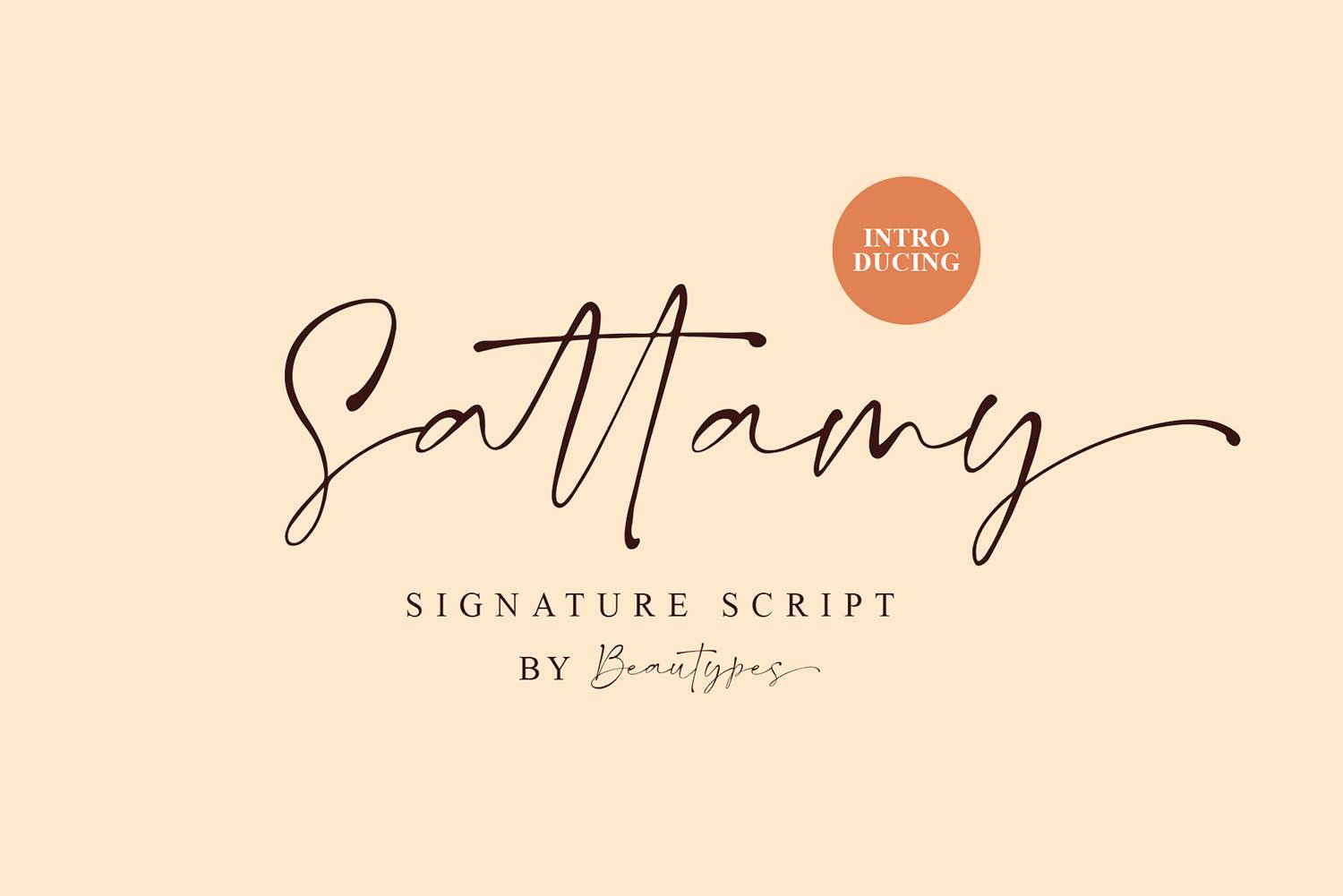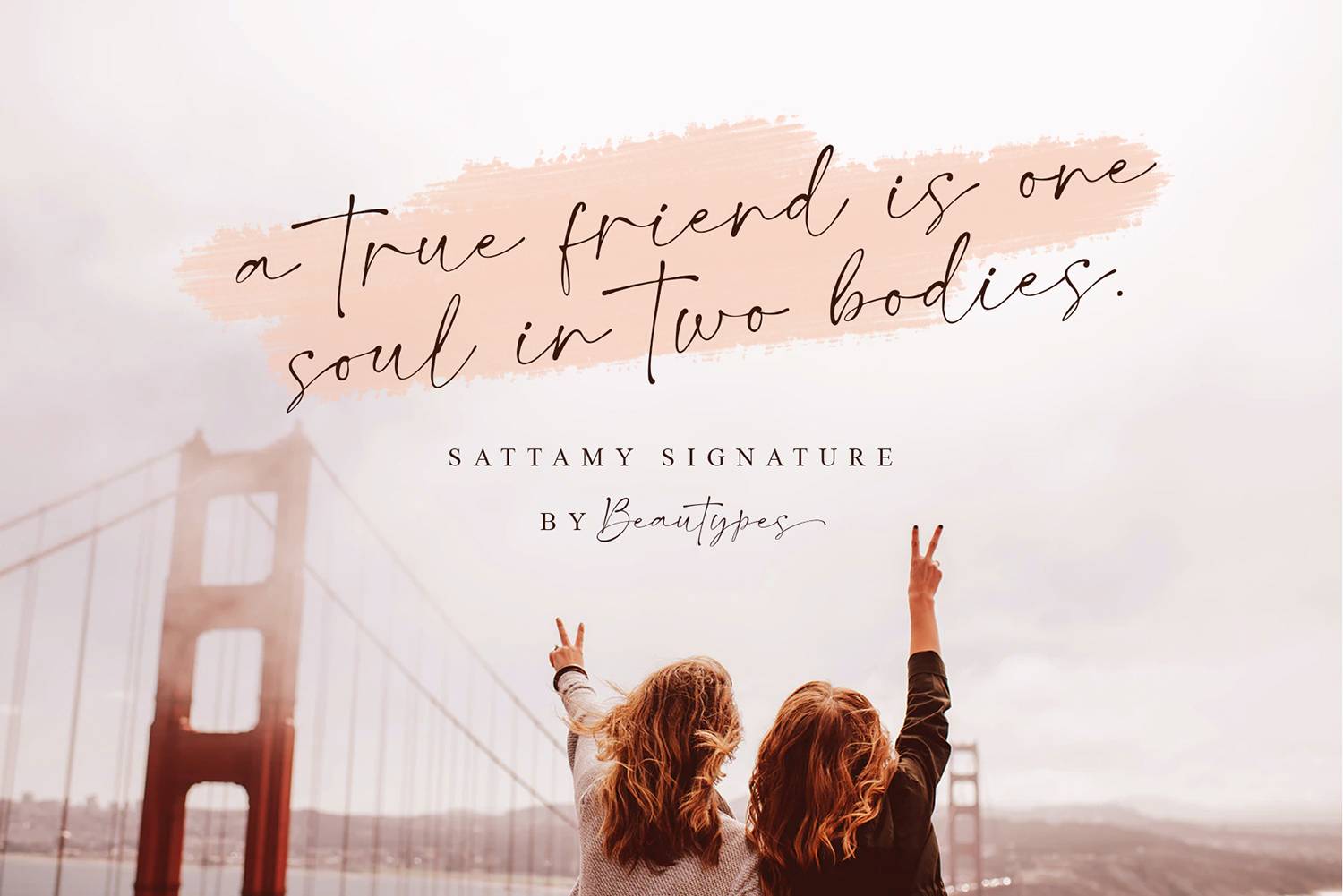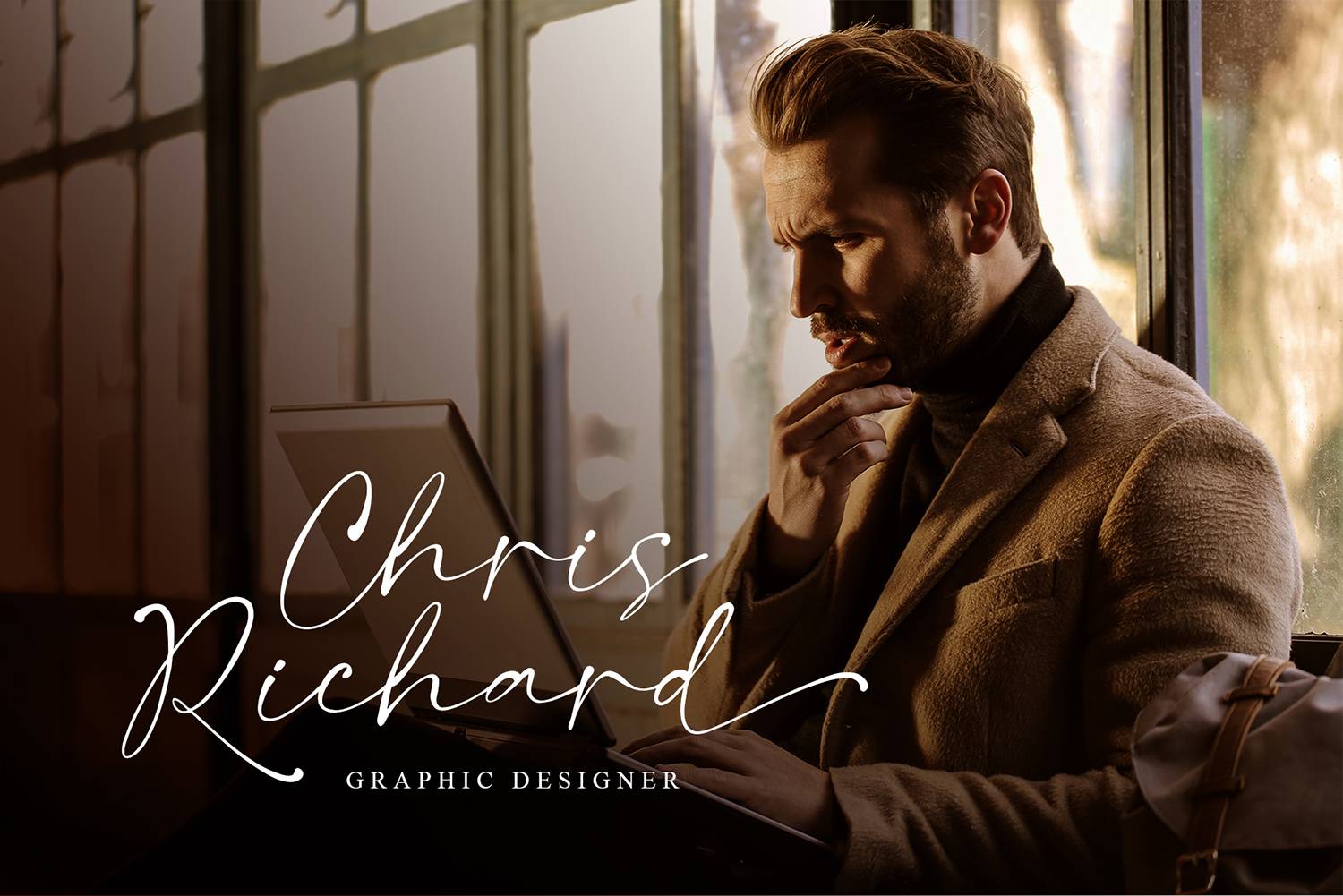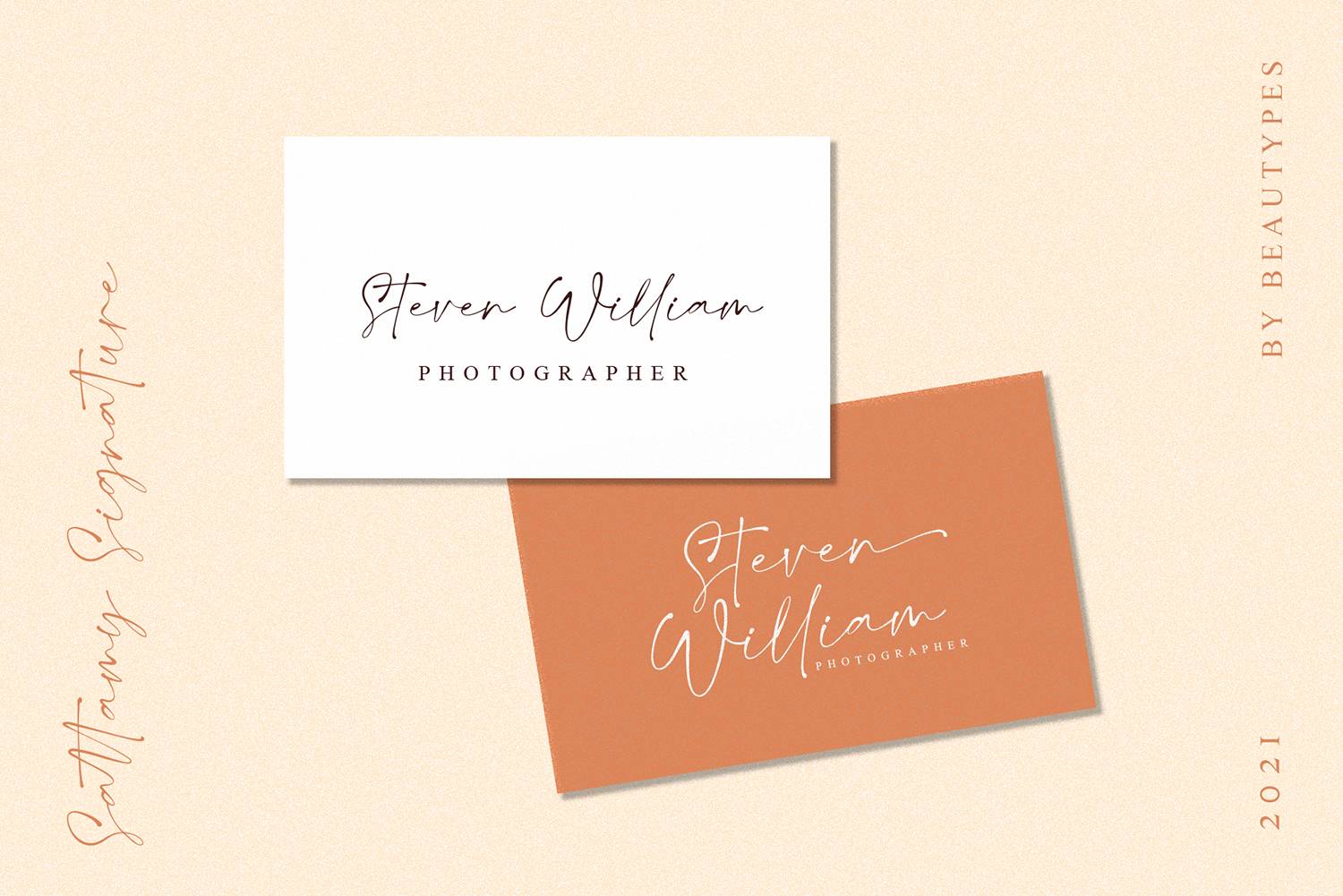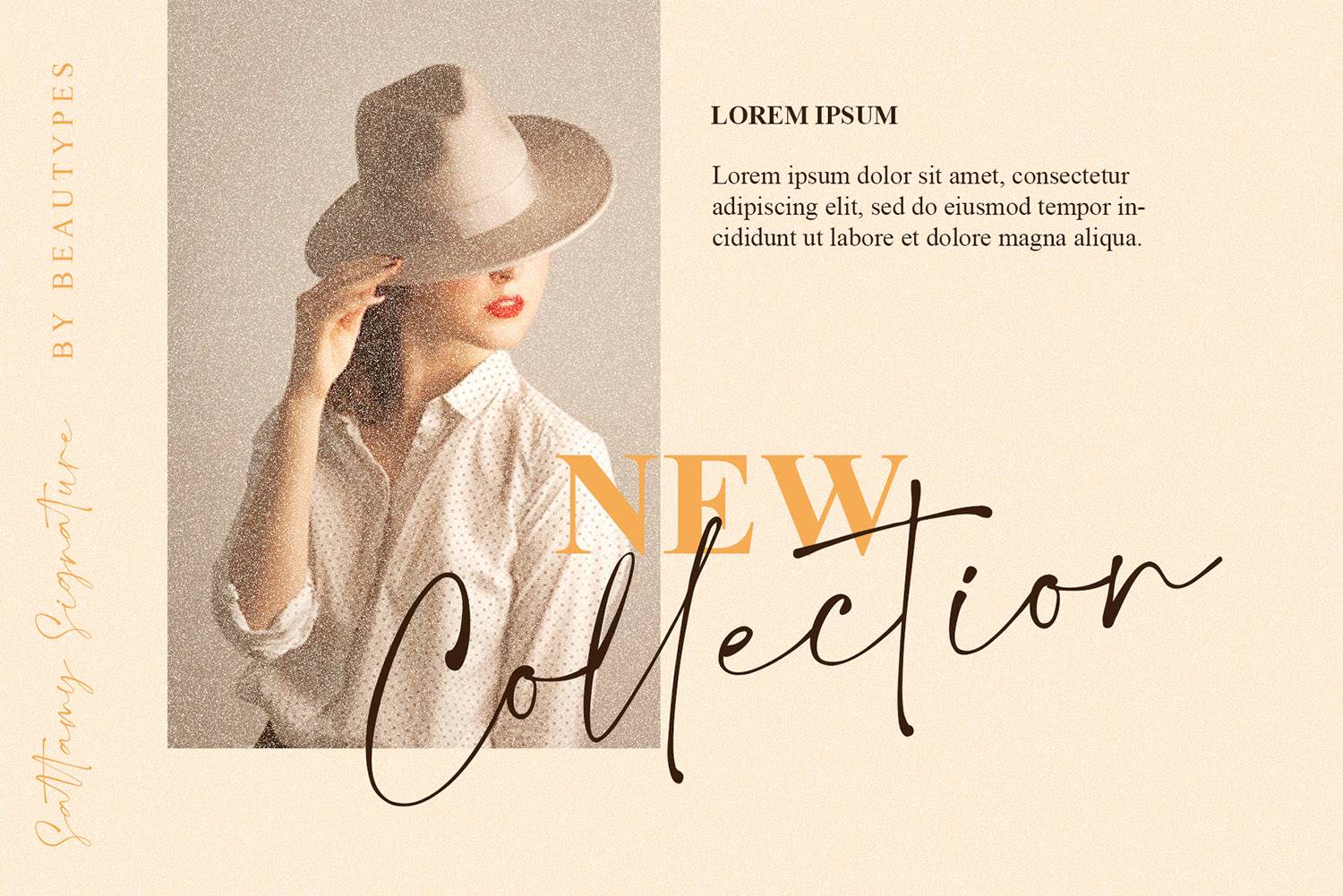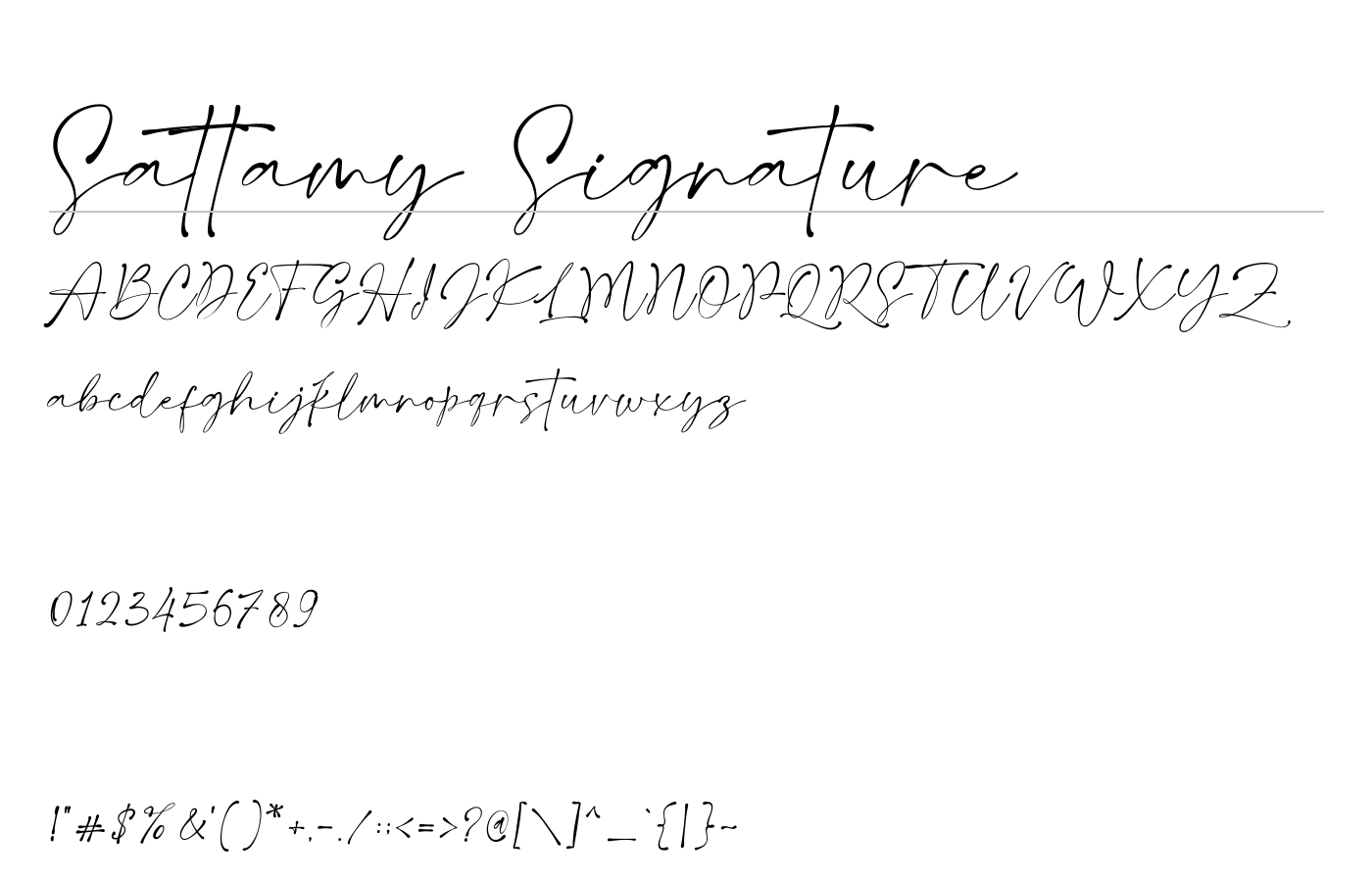
Sattamy Signature Font is a delicate, modern script with a handwritten, elegant feel. Its thin, flowing strokes and graceful letterforms make it perfect for adding a personal, sophisticated touch to branding, invitations, and stylish logos. This font works best for projects that need a refined and artistic look, such as fashion, beauty, or luxury design.
Sattamy Signature Font
About Sattamy Signature Font